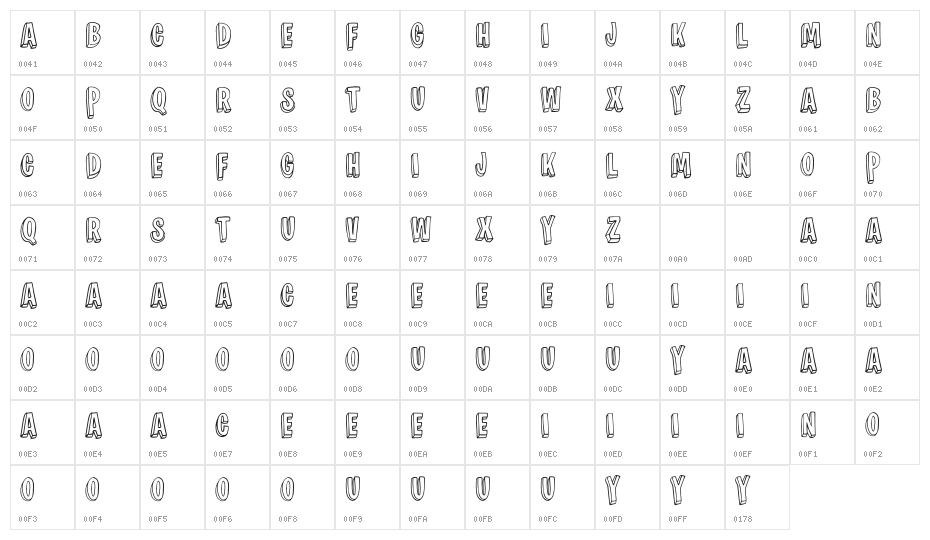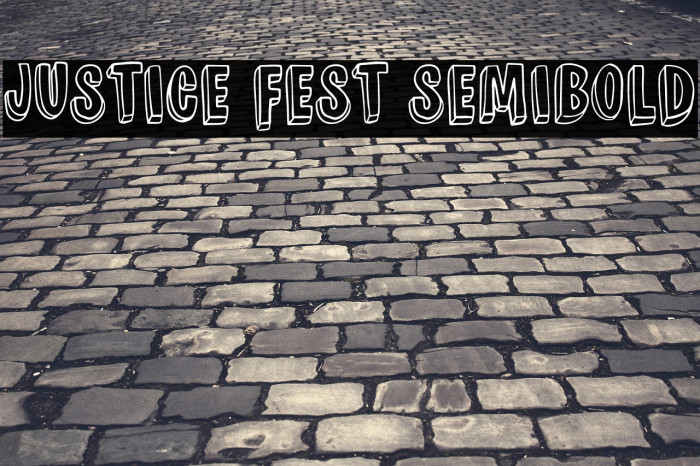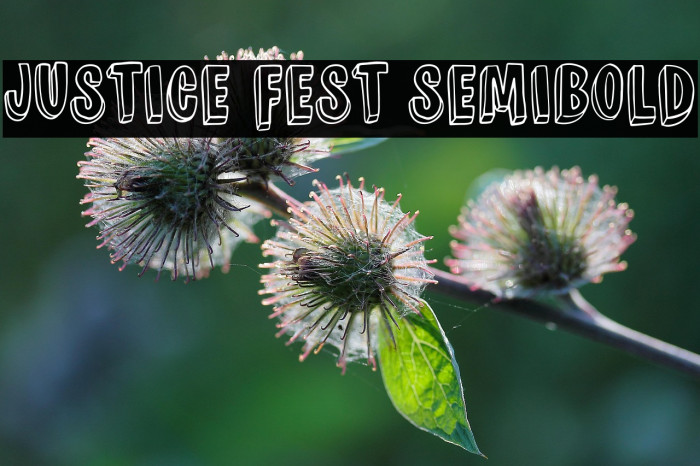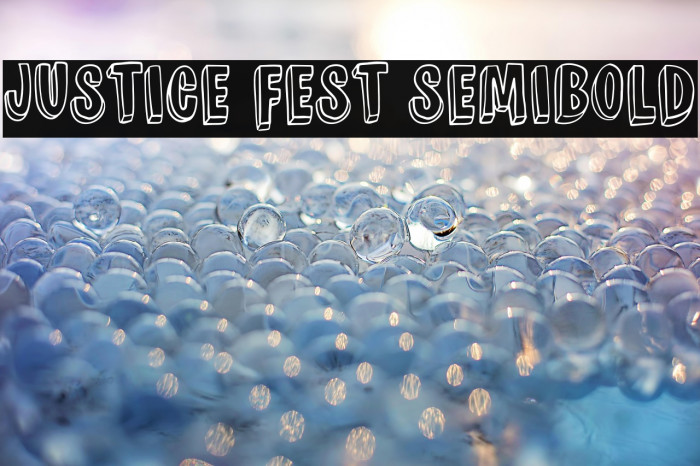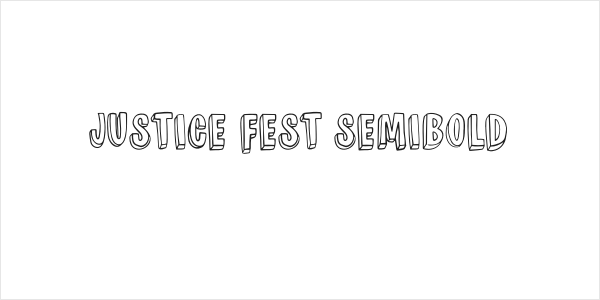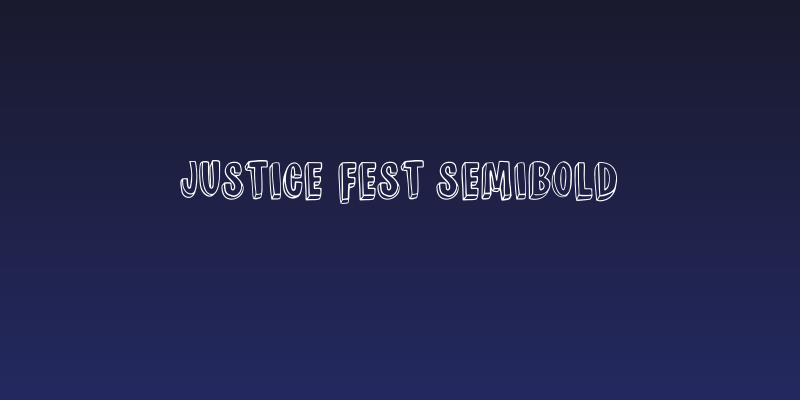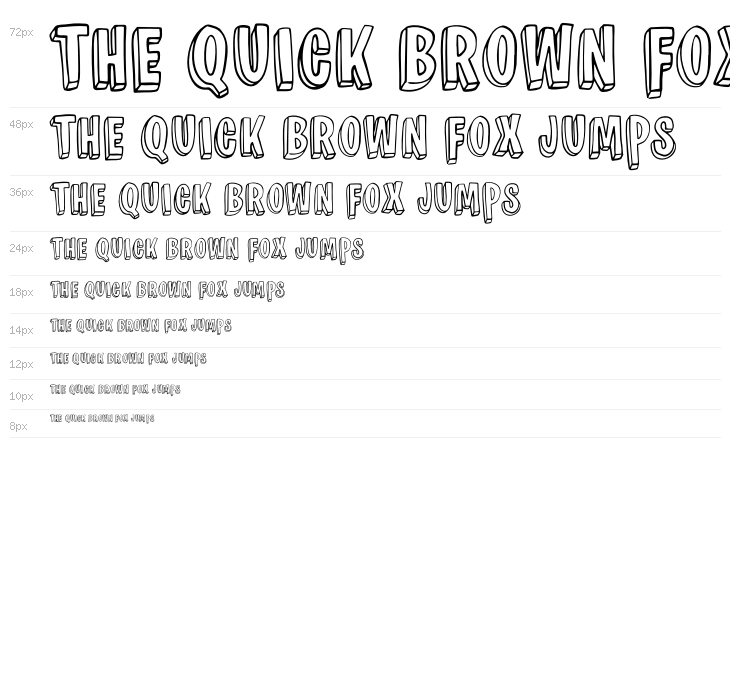
JUSTICE FEST Semibold Font
JUSTICE FEST Semibold Description
This font features a bold, three-dimensional style with a playful and dynamic appearance. Each letter is outlined with a shadow effect, giving it a sense of depth and movement. The characters are uppercase only, with a consistent thickness throughout, creating a uniform look. The design is reminiscent of comic book lettering, making it ideal for projects that require a fun and engaging visual impact. The spacing between characters is normal, allowing for easy readability while maintaining the font's distinctive style.
| Overall Style | Playful, Comic |
| Proposed Projects | Ideal for comic books, posters, children's books, and playful branding projects. |